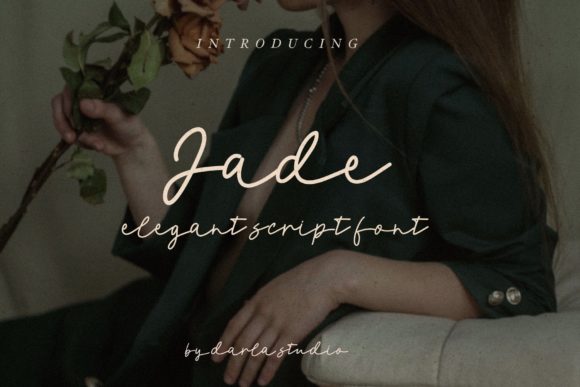
Jade Script: A Stylish Font for Modern Branding
More Than Just Letters: The Personality of Jade Script
When you're building a brand or crafting a message, the typeface you choose is one of the first voices your audience hears. It sets a tone before a single word is read. This is where a font like Jade Script enters the conversation. It’s not just a collection of letters; it’s a carefully crafted script font designed to convey elegance, warmth, and a touch of personal flair. Its flowing, connected strokes mimic the natural rhythm of hand-lettering, but with a polished consistency that feels both professional and approachable.
The visual character of Jade Script is defined by its graceful curves and balanced weight. It avoids the extremes of being too formal or too casual, finding a sweet spot that makes it incredibly versatile. The letterforms have a modern sensibility, steering clear of overly ornate or dated calligraphic styles. This makes it a modern typography choice that feels fresh and relevant. It’s the kind of creative font that doesn’t shout for attention but rather draws you in with its quiet confidence, making it a valuable design asset for any creative toolkit.
Finding Its Place: Where Jade Script Truly Shines
Understanding a font’s strengths is key to using it effectively. Jade Script excels in projects where a human touch and a sense of sophistication are desired. Its applications are broad, but it truly comes alive in specific contexts.
Crafting a Memorable Brand Identity
For entrepreneurs and small business owners, building a recognizable brand identity is paramount. Jade Script is a powerful tool for logo design, especially for brands in the lifestyle, wellness, boutique retail, or artisanal food spaces. It can instantly communicate that a business is personal, high-quality, and cares about aesthetics. Think of a logo for a custom wedding stationery studio, a boutique coffee roaster, or a handmade skincare line—the font adds an inherent story of craftsmanship. Beyond the logo, it works beautifully for brand collateral like thank-you cards, packaging tags, and email signatures, ensuring a cohesive and professional look across all touchpoints.
Elevating Digital and Print Projects
In the digital realm, Jade Script is a standout choice for social media graphics. Its elegant style is perfect for creating quote cards, promotional announcements, and Instagram story headers that stop the scroll. It adds personality to blog post titles and website banners, helping to establish a unique voice for bloggers and content creators. For web design, it’s best used sparingly for headlines or call-to-action phrases where it can make a high-impact statement without compromising on-site readability.
In print, its applications are just as compelling. As a display font, it’s ideal for editorial design, bringing a touch of elegance to magazine headlines or chapter openers in a book. It’s a natural fit for wedding invitations, greeting cards, and event programs. For packaging design, it can add a premium, handcrafted feel to product labels, particularly for cosmetics, gourmet foods, or specialty beverages.
The Practical Side: Using Jade Script Effectively
A beautiful font is only useful if it’s applied correctly. Making the most of Jade Script involves a bit of strategy and an eye for detail. Here’s how to integrate it into your projects with confidence.
Mastering Font Pairing and Hierarchy
The key to using any script font successfully is pairing it with the right companion. Because Jade Script is expressive, it thrives when balanced with a cleaner, more neutral typeface. A classic combination is pairing it with a simple sans serif font for body text. The clean lines of the sans serif provide a clear, readable foundation, while Jade Script adds a flourish to headings and pull quotes. For a different feel, you could pair it with a sturdy serif font for a more traditional or literary aesthetic. The goal is to create a clear visual hierarchy where Jade Script draws the eye to key messages, and the supporting font handles the heavy lifting of information delivery.
Considering Readability and Context
While Jade Script is designed for clarity, it’s not intended for long blocks of running text. Its strength is as a display font. Always prioritize readability. Use it for headlines, short phrases, and accents. When setting text, pay attention to size and spacing (tracking and leading). A slightly larger size with comfortable letter spacing will allow its beautiful details to shine. Always test your designs at the intended viewing size, whether it’s on a mobile screen or a printed flyer, to ensure your message is communicated clearly.
Leveraging the Bonus Graphics
A practical advantage of this premium font package is the inclusion of a bonus graphics set. These design assets—such as swashes, flourishes, or ornamental elements—are not just decorative extras. They are tools that can help you create a more complete and polished design. Use a delicate swash to underline a company name, or incorporate a small graphic into a social media post to frame your text. These elements are designed to work harmoniously with the Jade Script typeface, helping you save time and maintain a consistent style across your project.